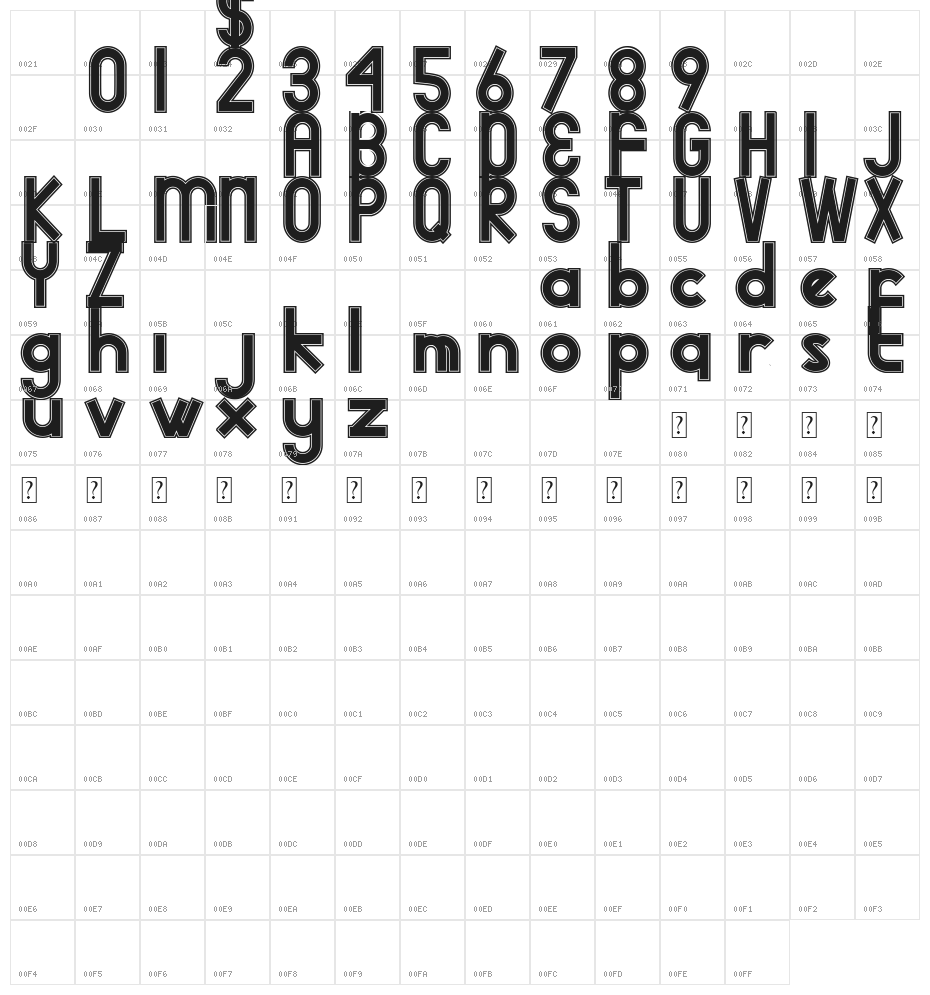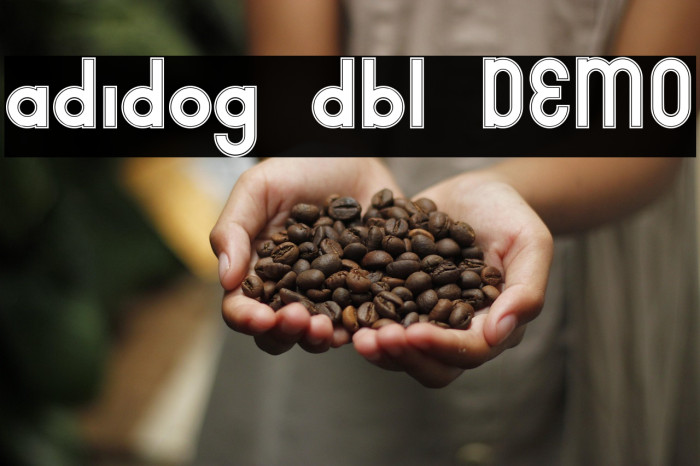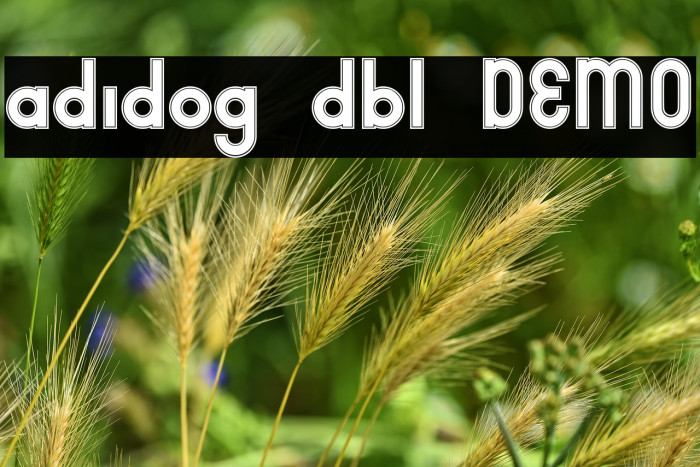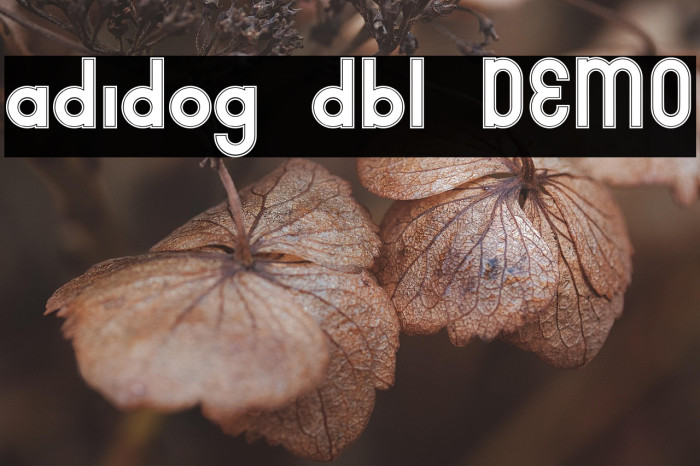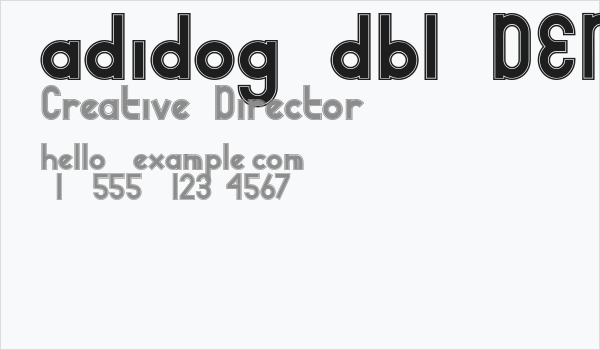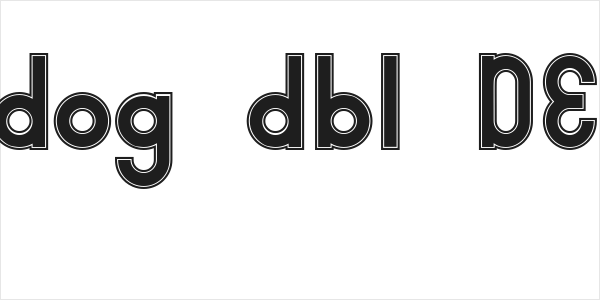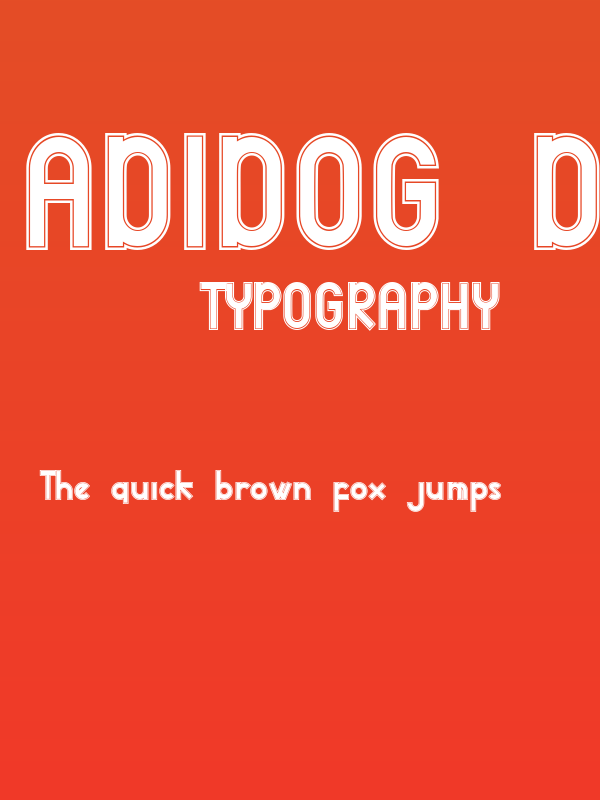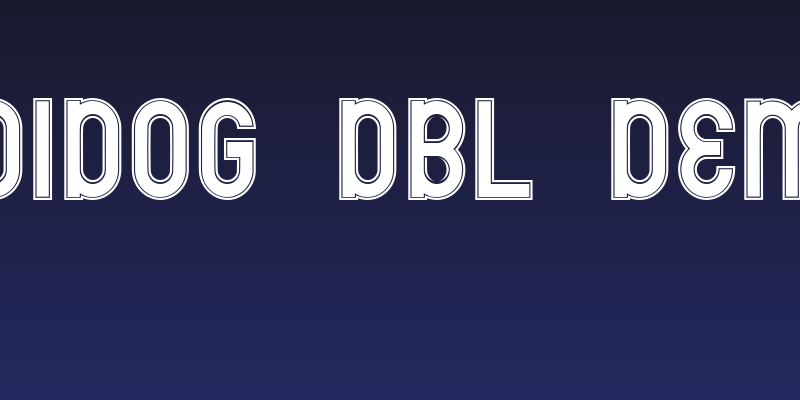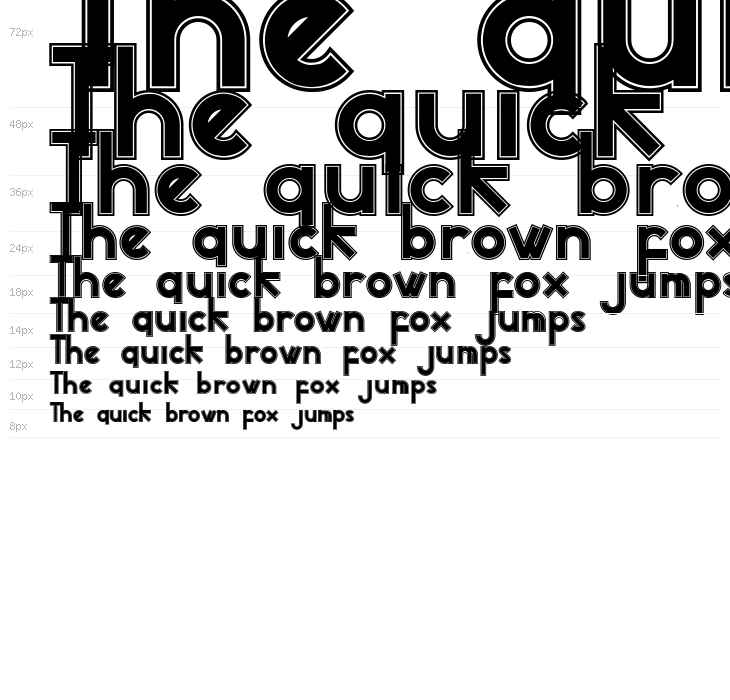
adidog dbl DEMO Font
adidog dbl DEMO Description
This font features a bold, geometric style with a double-line effect that creates a striking visual impact. The uppercase letters are uniform in height and width, giving a balanced and structured appearance. The lowercase letters maintain the same geometric aesthetic, with rounded edges that soften the overall look. The numerals are consistent with the letterforms, ensuring a cohesive design. Special characters like the dollar sign and ampersand are crafted with the same attention to detail, making them stand out. The font's unique double-line design adds depth and dimension, making it ideal for eye-catching displays.